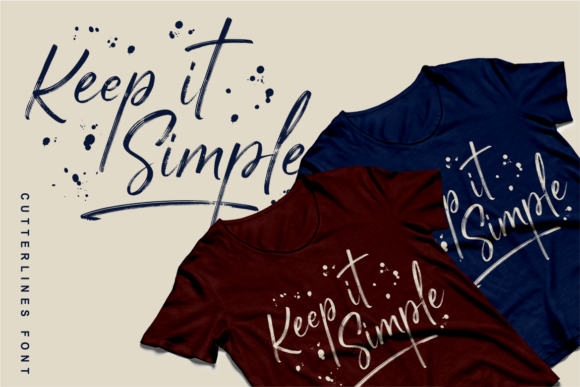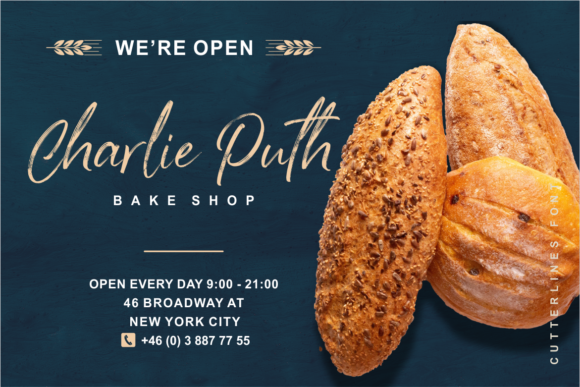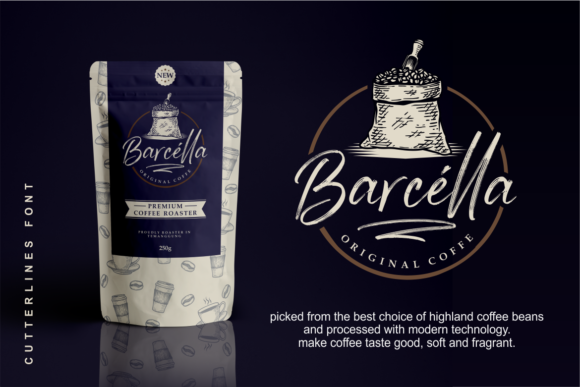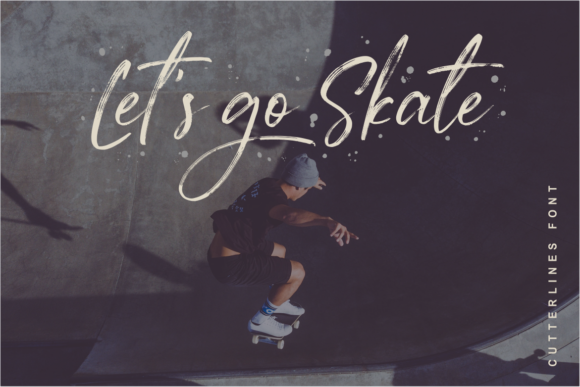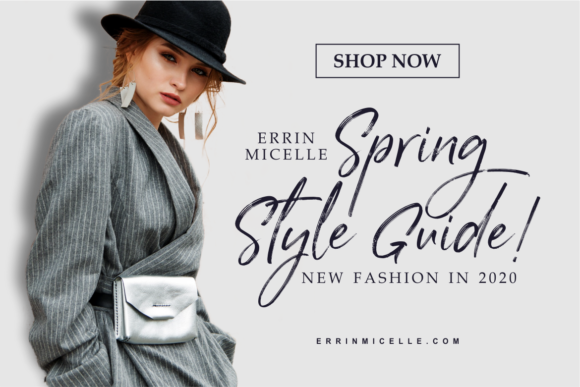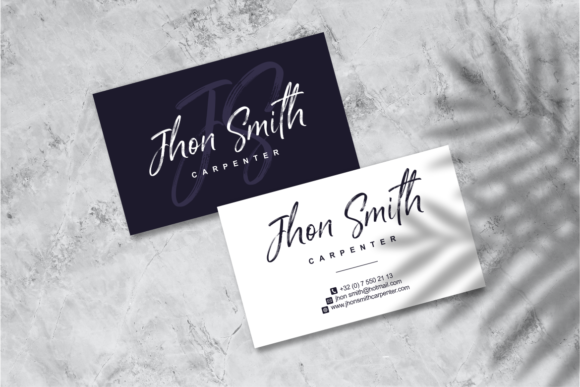
Cutterlines Font: Add a Touch of Rustic Charm to Your Designs
Are you looking for a font that can add a dash of rustic charm to your designs? Look no further than Cutterlines Font! This textured brush handwritten font is perfect for crafters, designers, and anyone looking to add a personal touch to their projects. In this article, we’ll dive into the features of Cutterlines Font, its uses, and why it’s a must-have for your design arsenal.
What is Cutterlines Font?
Cutterlines Font is a unique, textured brush handwritten font that features a rustic style. It’s designed to bring a touch of warmth and personality to your designs, making it perfect for a variety of projects. The font comes with a range of extras, including cute rush vector graphics and coffee vectors, which can be used to brighten up your crafting projects.
Key Features of Cutterlines Font
- Textured Brush Handwritten Style: Cutterlines Font features a beautiful, textured brush handwritten style that gives your designs a personal touch.
- Rustic Charm: The font’s rustic style makes it perfect for projects that require a vintage or distressed look.
- Cute Rush Vector Extras: The font comes with a range of cute rush vector graphics that can be used to add a playful touch to your designs.
- Coffee Vectors: The font also includes coffee vectors, which can be used to add a touch of warmth and coziness to your designs.
- Multipurpose: Cutterlines Font is perfect for a variety of projects, including logos, branding, posters, and more.
Uses of Cutterlines Font
Cutterlines Font is a versatile font that can be used for a wide range of projects. Here are some ideas to get you started:
- Logos and Branding: Use Cutterlines Font to create a unique and memorable logo for your business or brand.
- Posters and Flyers: The font’s rustic style makes it perfect for creating eye-catching posters and flyers.
- Crafting Projects: Cutterlines Font is perfect for crafters who want to add a personal touch to their projects, such as scrapbooking, card making, and more.
- Social Media Graphics: Use the font to create engaging social media graphics that will help your brand stand out.
Why Choose Cutterlines Font?
So, why should you choose Cutterlines Font for your design projects? Here are just a few reasons:
- Unique Style: Cutterlines Font has a unique, textured brush handwritten style that will set your designs apart from the rest.
- Easy to Use: The font is easy to use and comes with a range of extras, making it perfect for designers of all levels.
- Multipurpose: The font can be used for a wide range of projects, making it a great addition to your design arsenal.
- Rustic Charm: The font’s rustic style makes it perfect for projects that require a vintage or distressed look.
In conclusion, Cutterlines Font is a unique and versatile font that can add a touch of rustic charm to your designs. With its textured brush handwritten style, cute rush vector extras, and coffee vectors, it’s perfect for a wide range of projects, from logos and branding to posters and crafting projects. Whether you’re a designer, crafter, or just looking for a font that can add a personal touch to your projects, Cutterlines Font is a must-have.